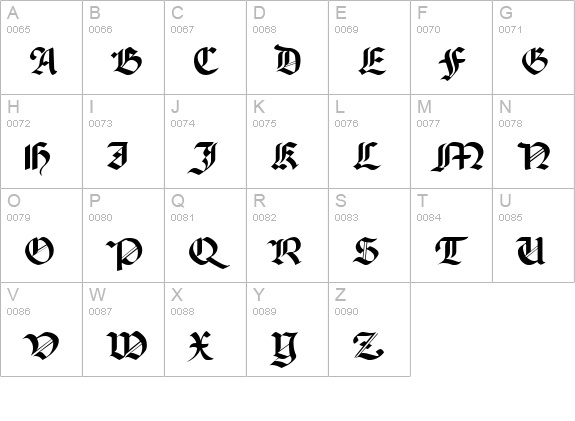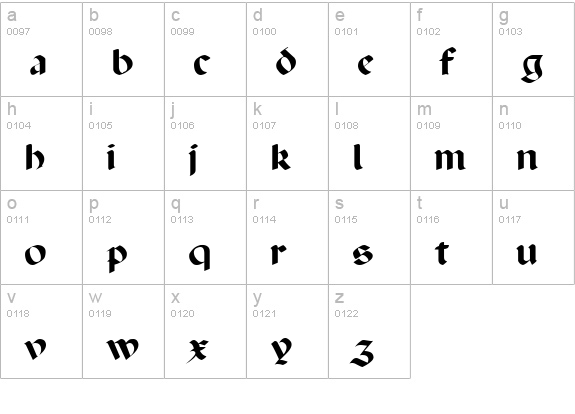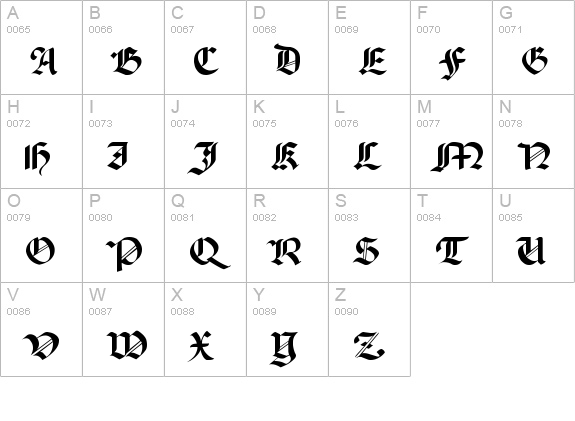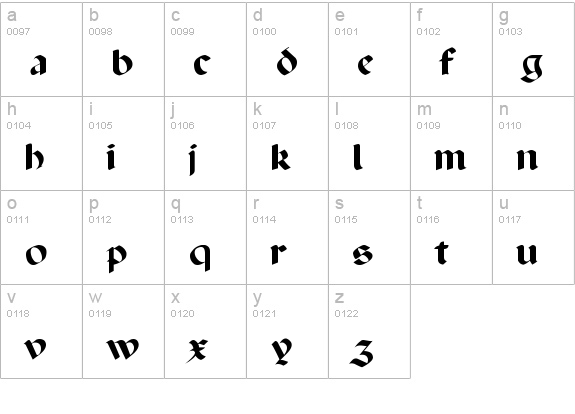
Lancaster Font Details
Lancaster font is a timeless and elegant typeface that effortlessly combines traditional elements with a modern twist. Its graceful curves and clean lines make it perfect for a wide range of design projects, from invitations and branding materials to book covers and signage. With its versatility and sophistication, Lancaster font adds a touch of class and refinement to any design. Whether you're aiming for a classic and formal look or a more contemporary and chic style, this font has got you covered. One of the standout features of Lancaster font is its extensive character set, which includes a variety of ligatures, alternates, and swashes. These additional glyphs provide even more creative possibilities and allow you to truly customize your typography. The best part? Lancaster font is completely free! You can easily download it at FontsMarket.com, a reputable website known for its vast collection of high-quality fonts. This means that you can use Lancaster font without any restrictions, whether it's for personal or commercial projects. So why wait? Embrace the timeless beauty of Lancaster font and elevate your designs to a whole new level. Download it today and let your creativity soar!